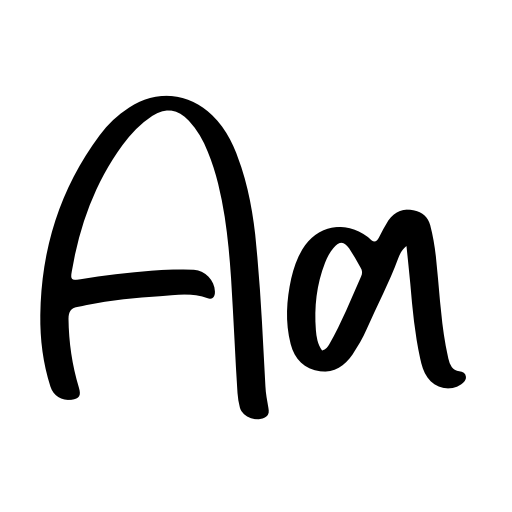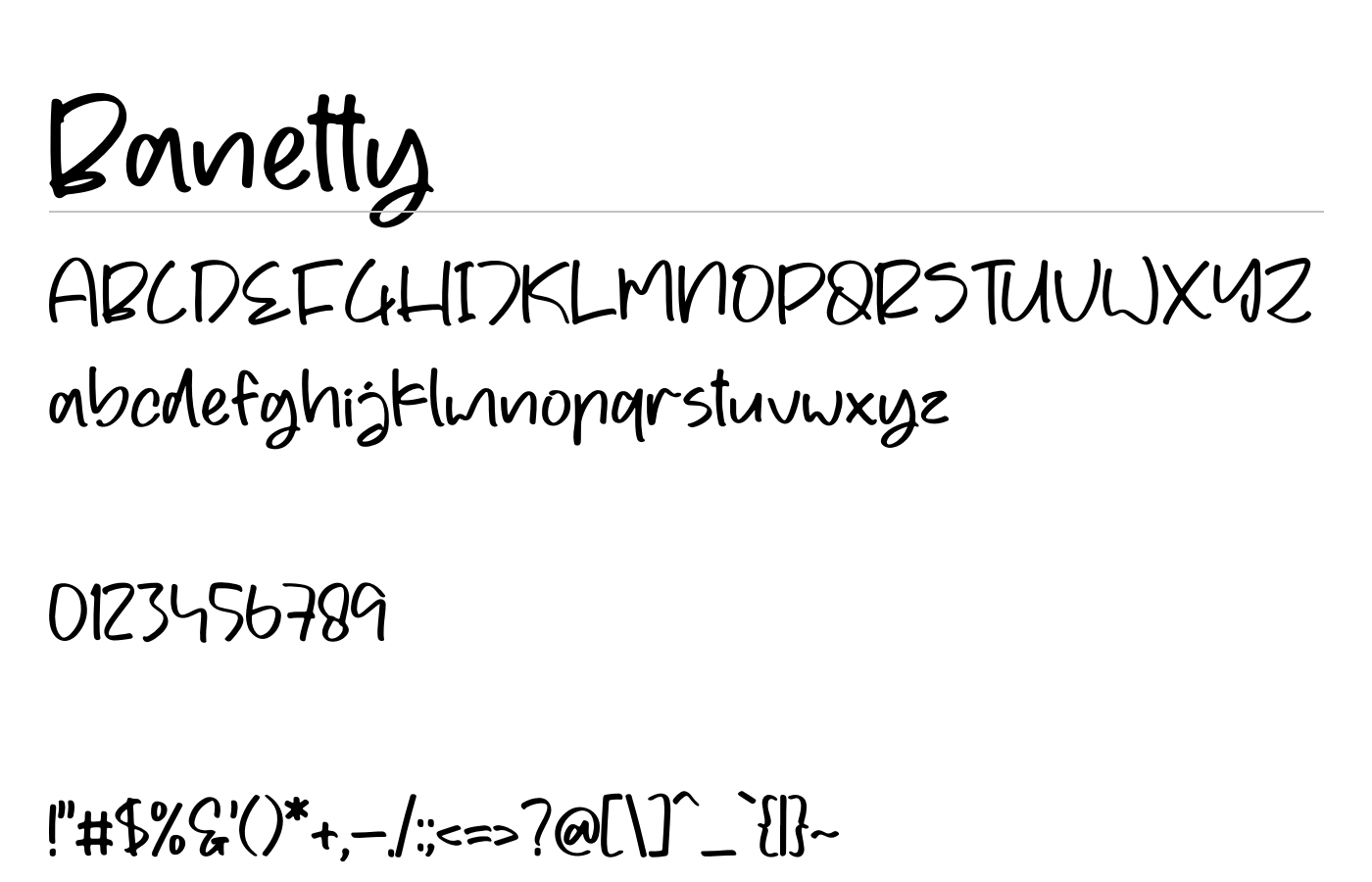
Banetty is a playful and casual handwritten font with a natural, flowing style that feels warm and inviting. Its medium weight and slightly irregular strokes give it a friendly, approachable character, perfect for adding a personal touch to creative projects, invitations, or informal branding. This font works well in settings that seek a relaxed and cheerful vibe, making it ideal for social media graphics, children’s products, or lifestyle blogs.
Banetty Font
About Banetty Font
| Font family | Banetty Font |
| Designer | Nanang Jamaludin |